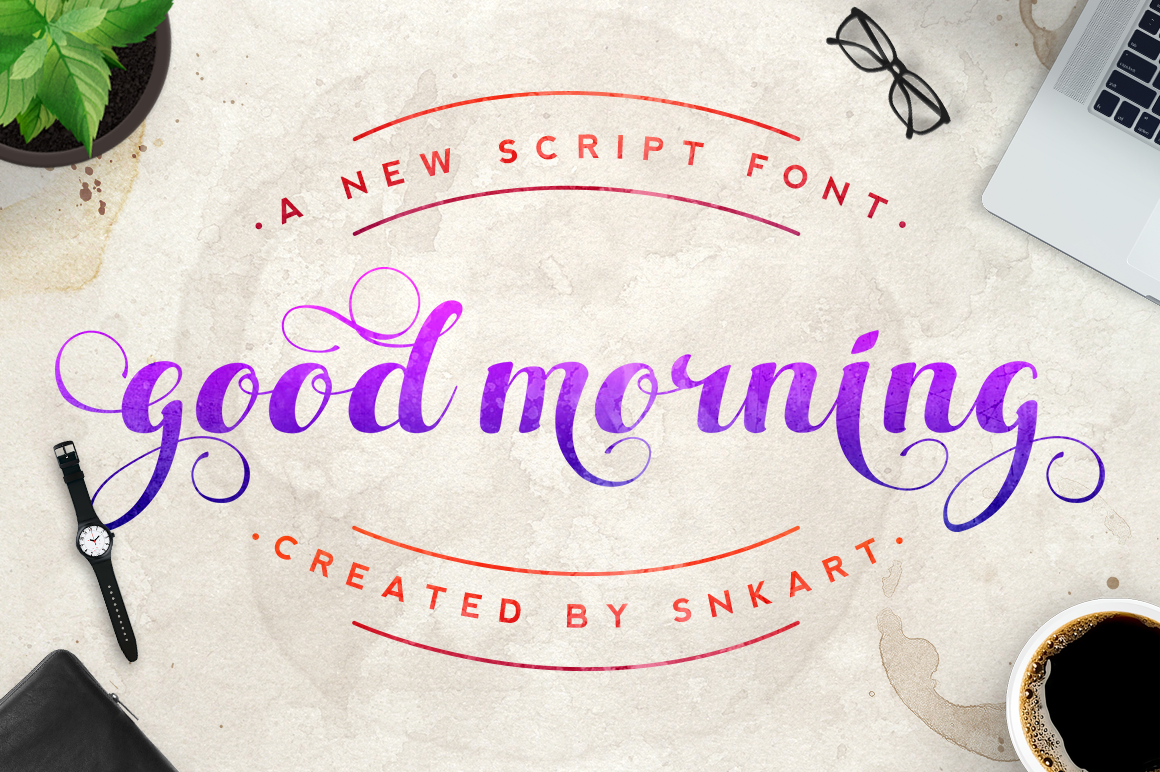
Good Morning Script Font
Good Morning is a modern script font and it comes ready and packed for you to use in your logos, badges, postcards and so much more.
It was designed to work good at small sizes too and it is also good for embroidery.
- Over 210 glyphs
- 52 Alternate Glyphs